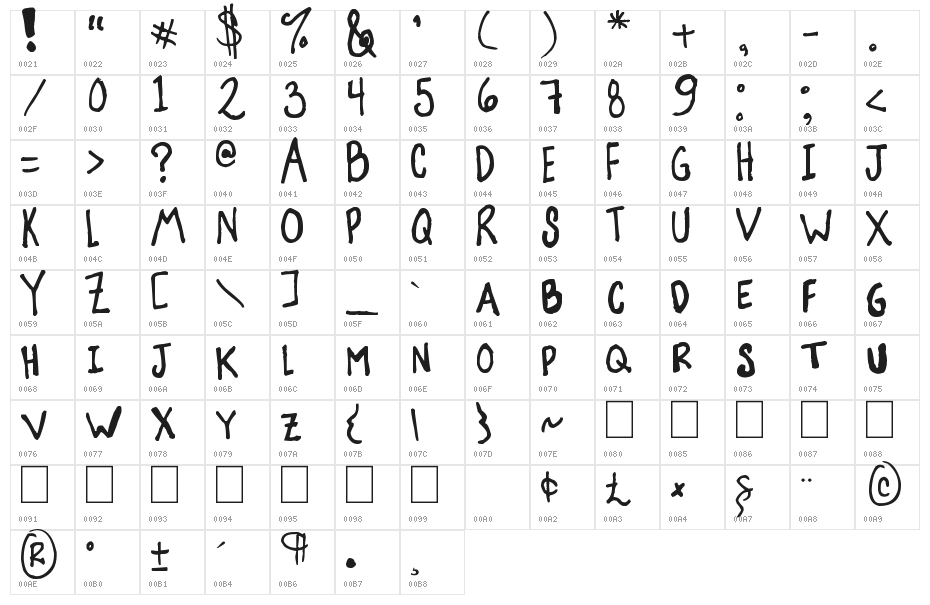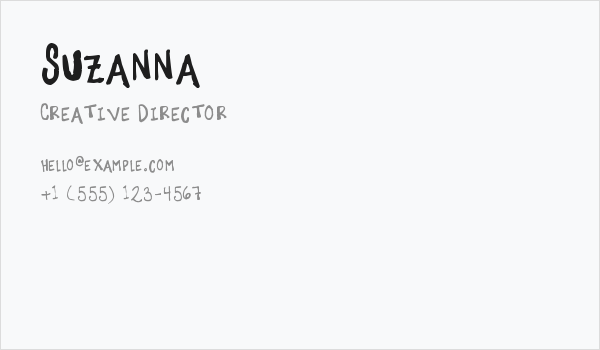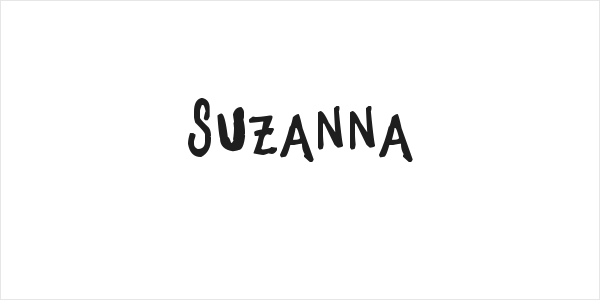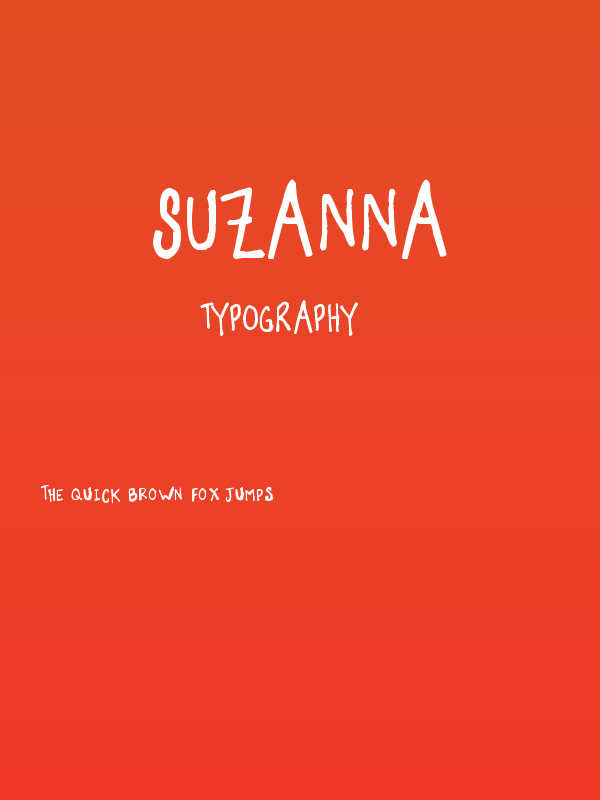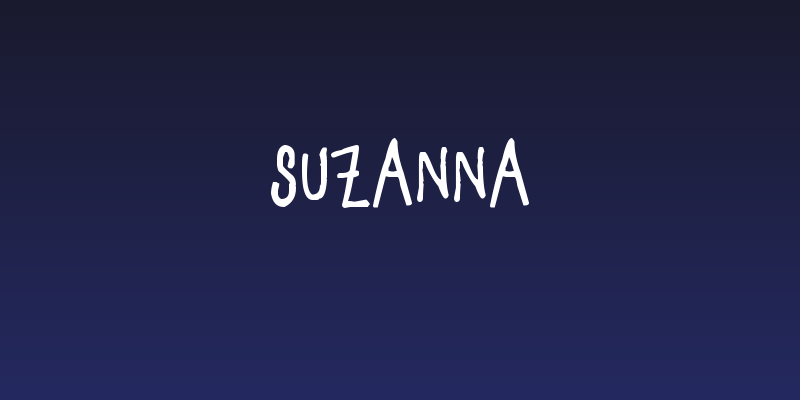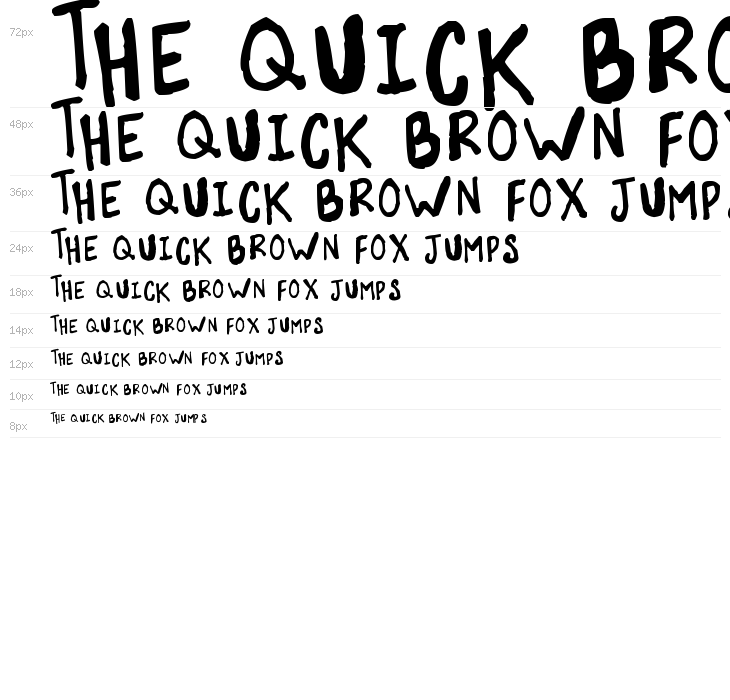
Suzanna Font
Suzanna Description
This font exhibits a playful and casual handwritten style, characterized by its irregular strokes and organic flow. The letters are bold and slightly uneven, giving it a personal and informal touch. The uppercase and lowercase letters maintain a consistent style, with a noticeable variation in stroke width that adds to its charm. The numerals are clear and easy to read, while the special characters retain the same whimsical quality. This font is ideal for projects that require a friendly and approachable aesthetic.
Overall StyleCasual
Use CaseLogos, Headlines, Informal Text
Proposed ProjectsPerfect for greeting cards, children's books, casual branding, and social media graphics.